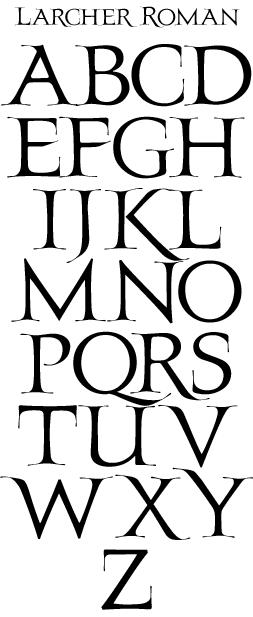
LHF Larcher Roman This stylized roman font was inspired by a drawn alphabet by Jean Larcher featured in the 22nd edition of The Speedball Textbook. Includes small caps.
Larcher Roman includes full punctuation